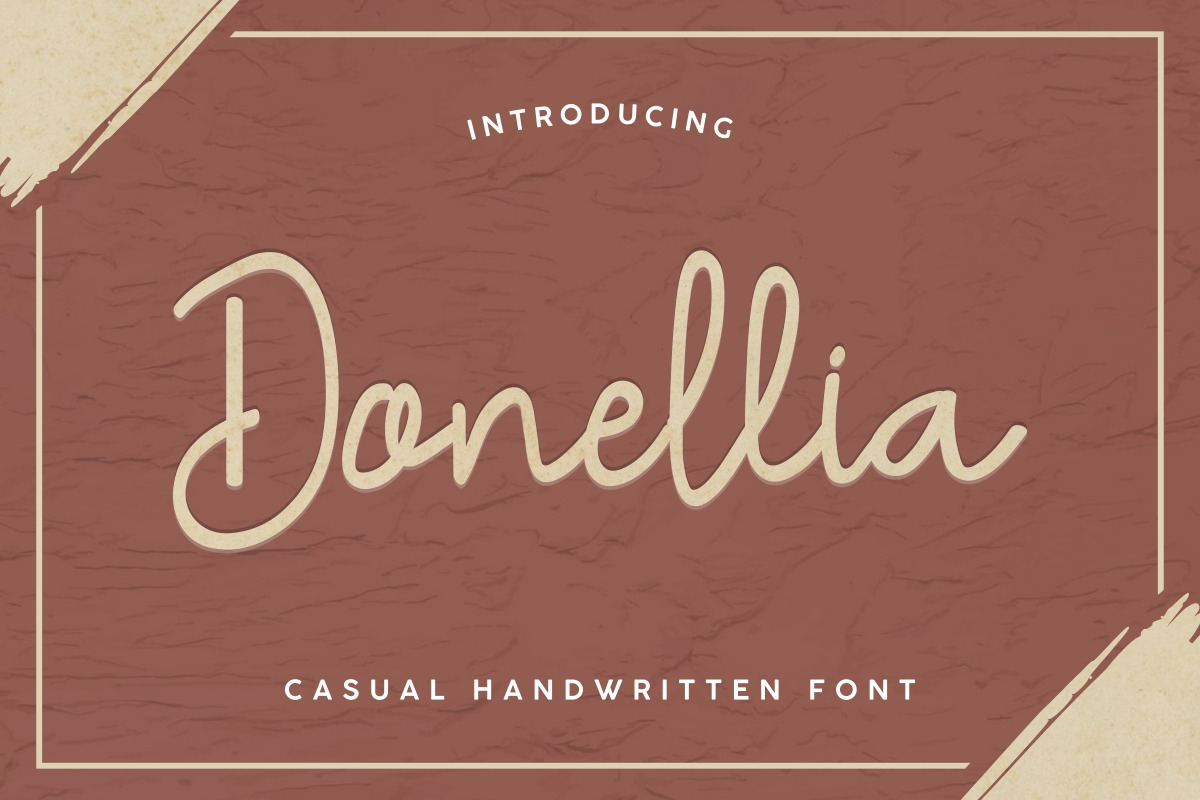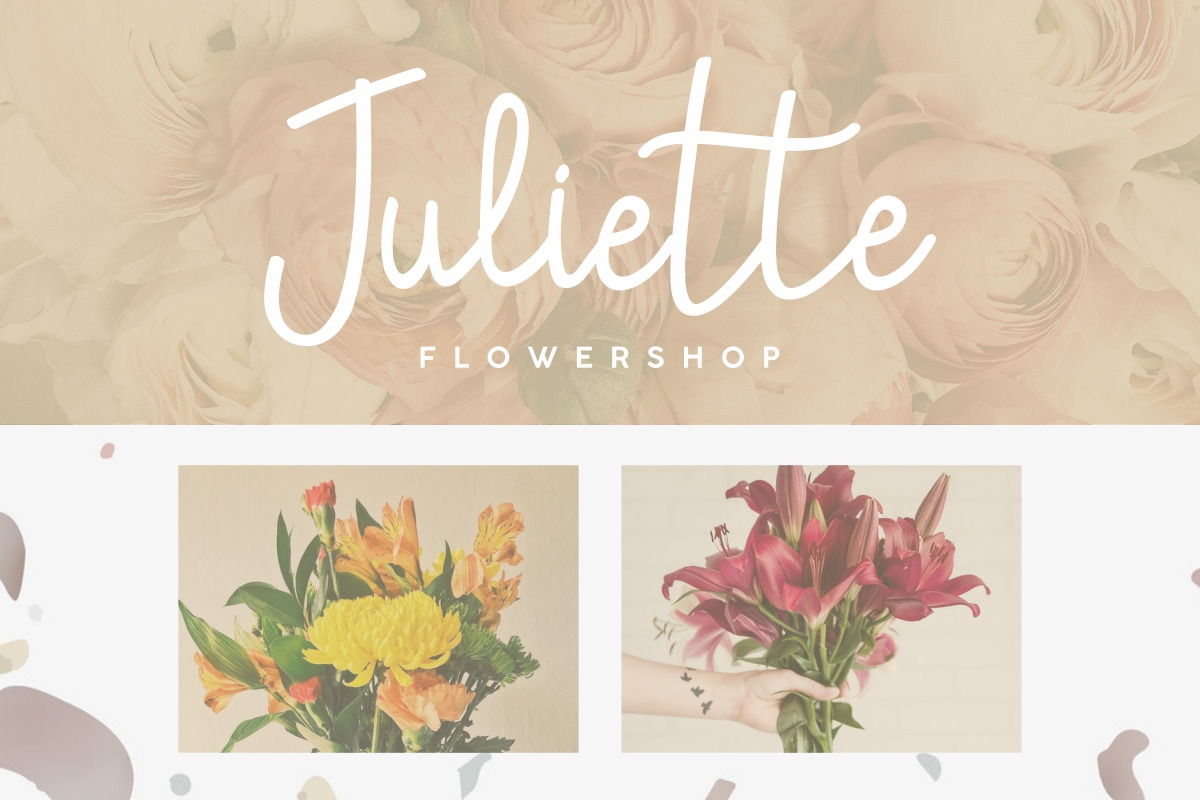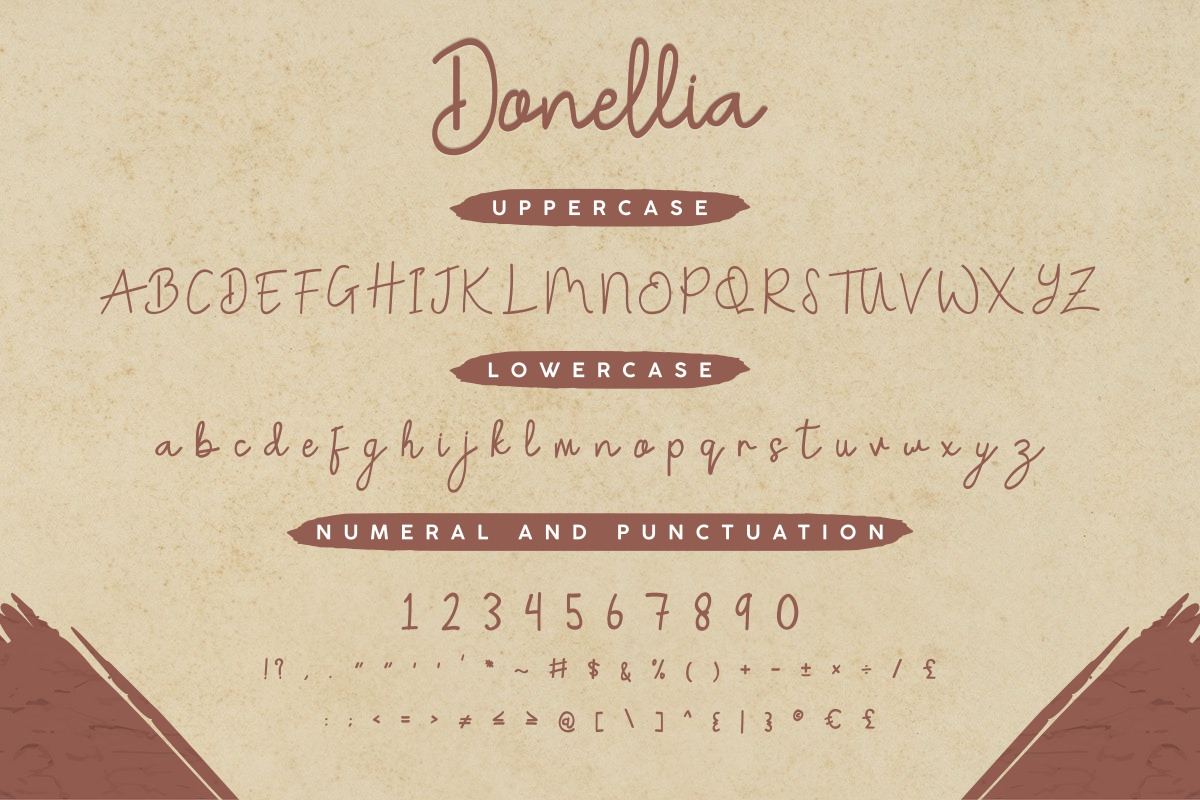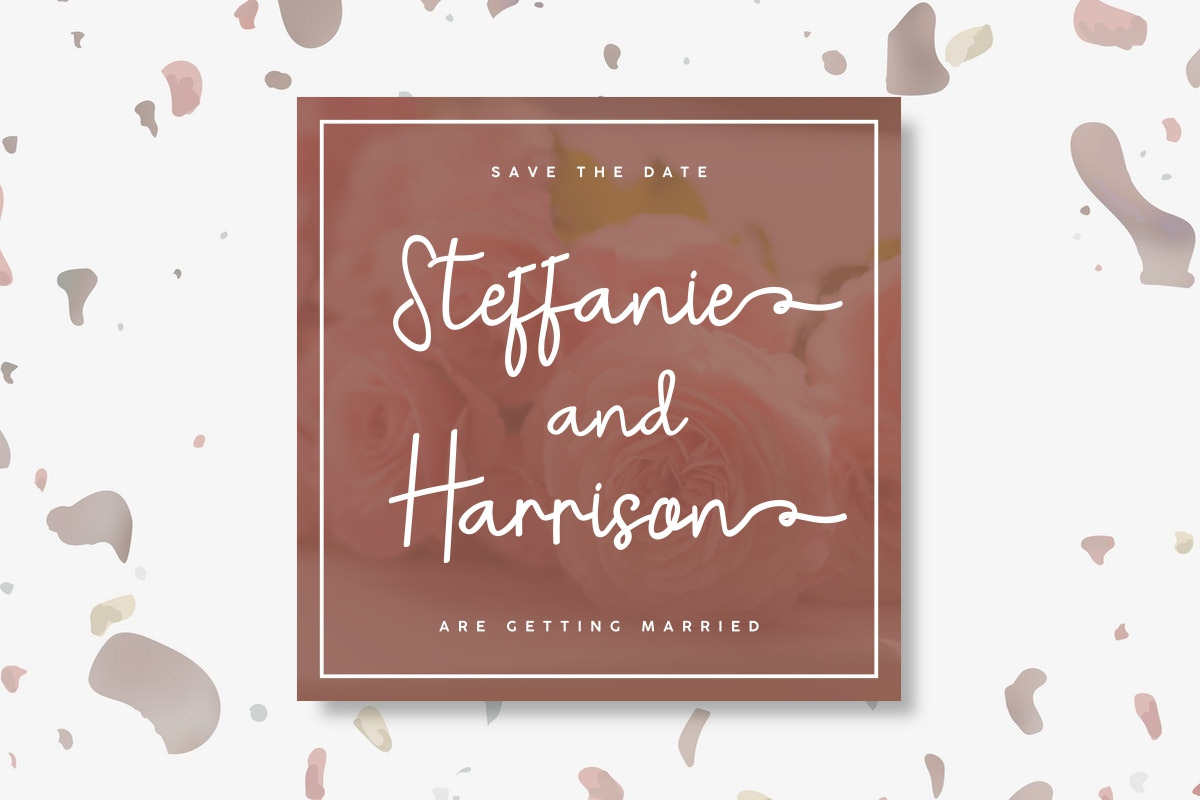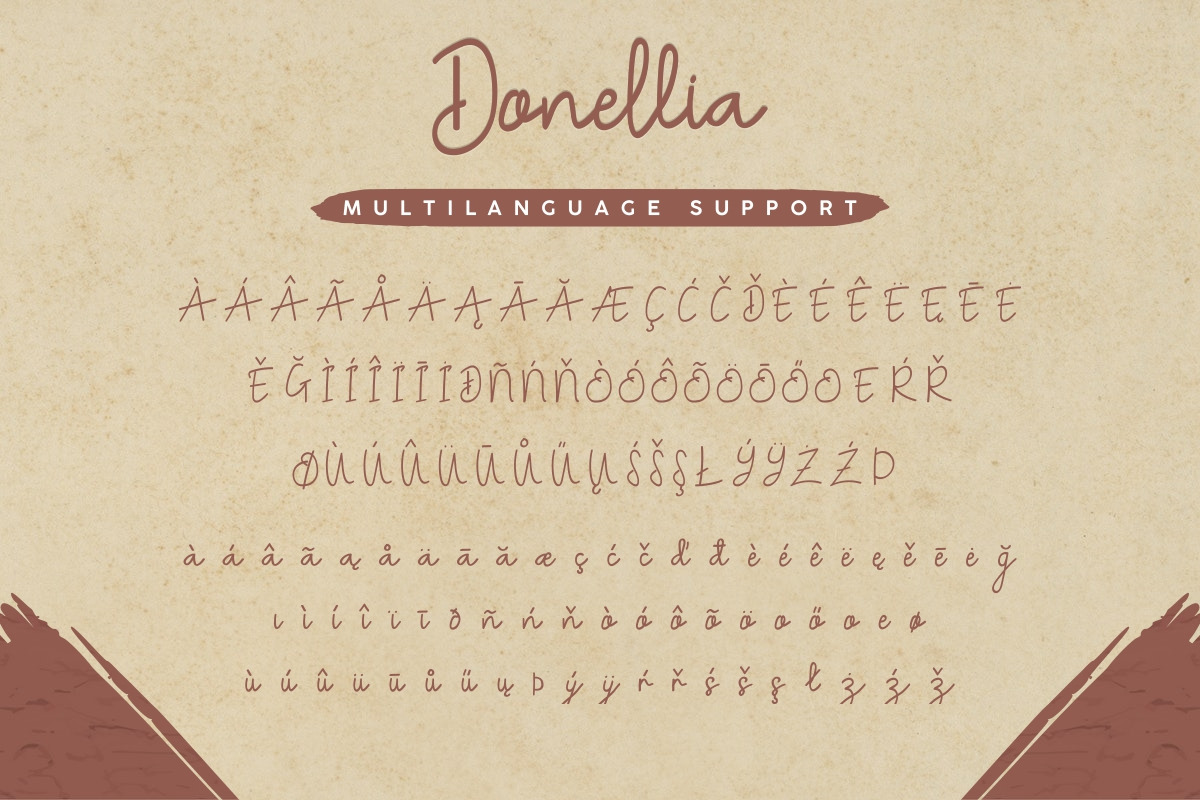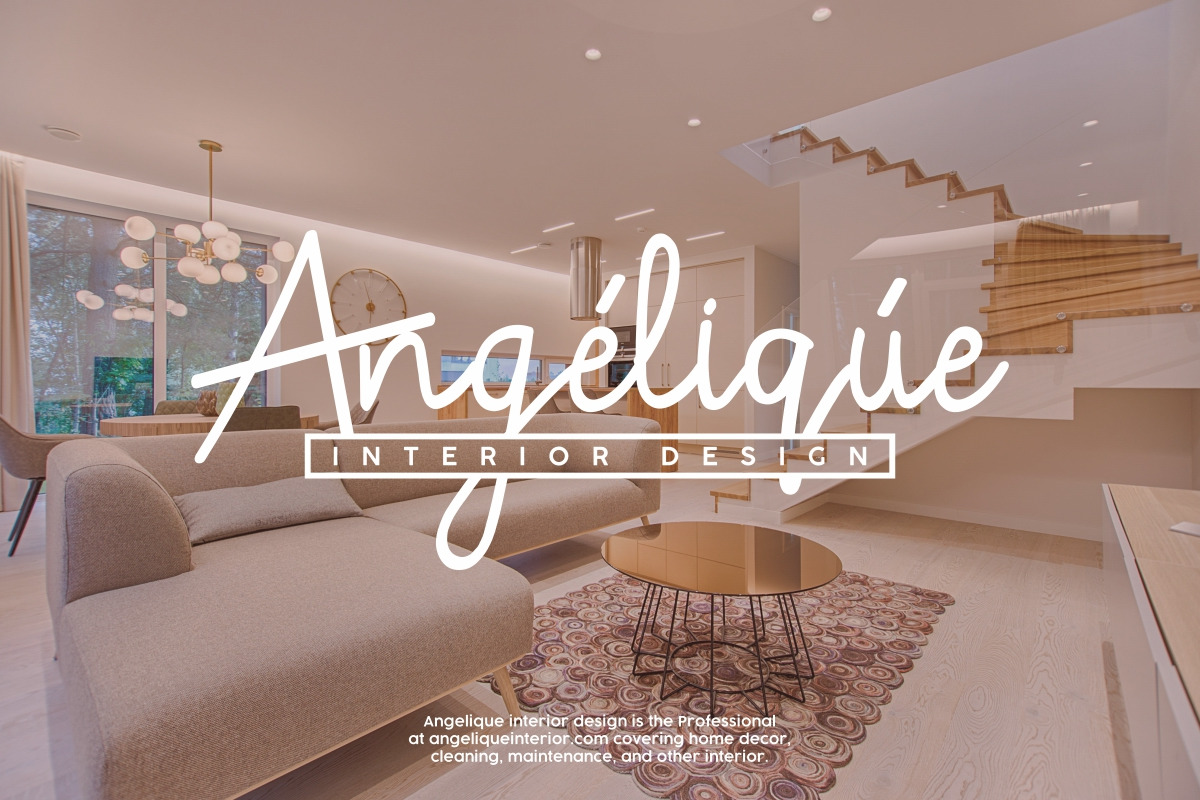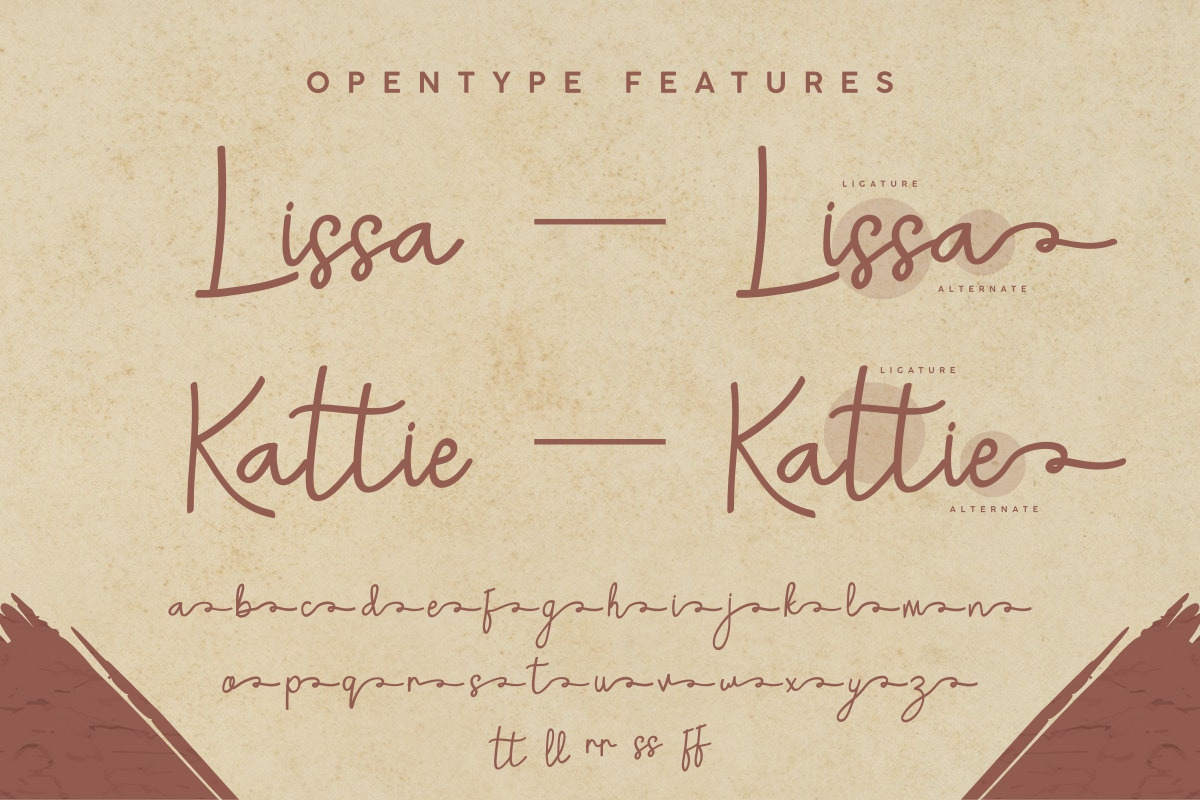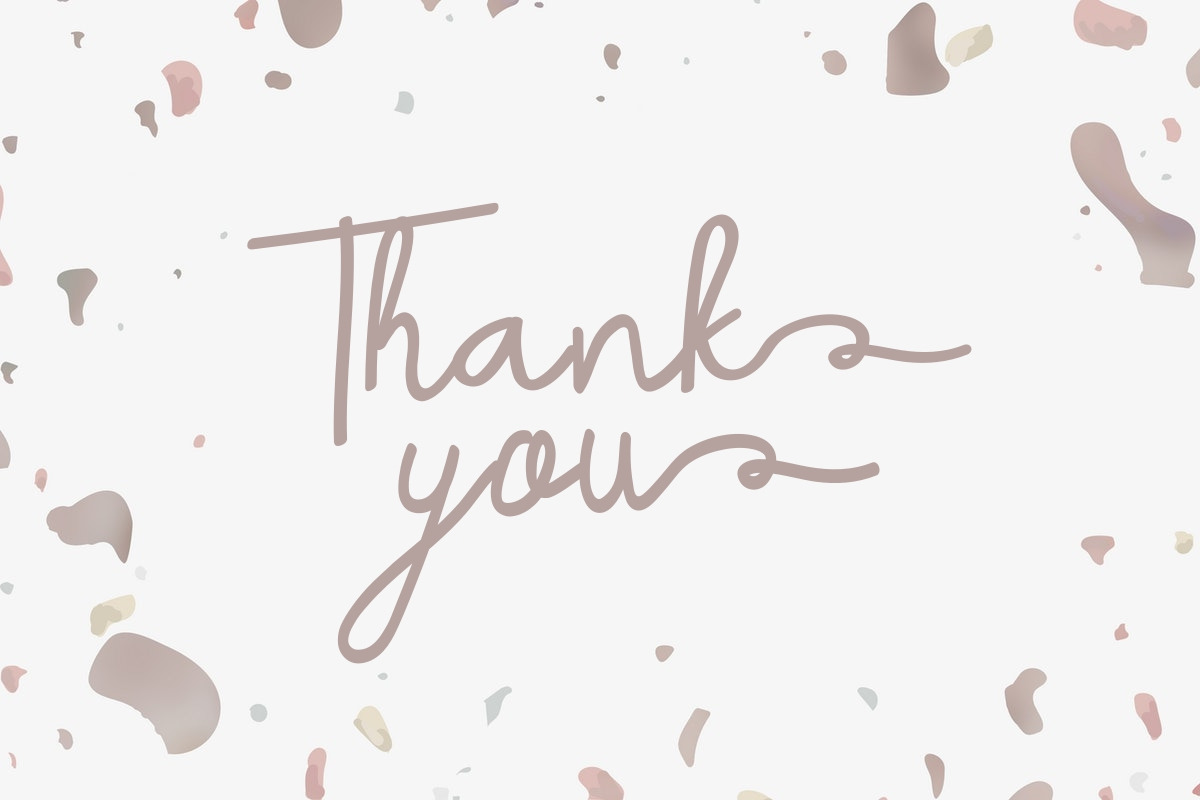
Donellia Handwriting Font
Please welcome! Donellia Handwriting Font
This is the newest font from our lovely typeface designer : Fahri. This is a script font, handcrafted from our Studio. Situated here in Garut and Bandung, Indonesia. Made with love and passion. :)
Donellia Handwriting Font is an exclusive signature handwriting script font with elegant style. The typeface has a stunning characters set, perfectly kerned and spaced. The style character of this font is elegant, stylish, sophisticated and classic pen writing lines.
Donellia Handwriting Font will be great for any projects including : branding, logo, stationery, business card, signage, flyer, brochure etc. Almost all industries will be match for this typeface: wedding, events, real estate, architect, law firm, florist, gardening, makeup artist, travel, hotel, musician etc